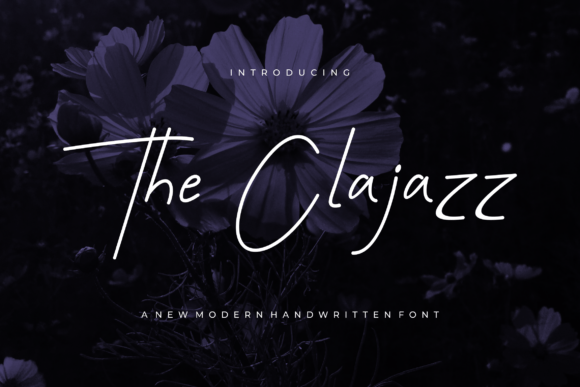
The Clajazz Font: A Timeless Elegance for Sophisticated Designs
The Clajazz Font is a sophisticated and elegant handwritten typeface that has captured the hearts of designers and typography enthusiasts alike. With its delicate and flowing style, this font is ideal for creating wedding invitations, branding, quotes, and elegant designs that exude a sense of refinement and poise. In this article, we will explore the features and benefits of the Clajazz Font, and how it can elevate your designs to new heights of sophistication and elegance.
The Origins of the Clajazz Font
The Clajazz Font is a carefully crafted typeface that is designed to evoke a sense of timeless charm and elegance. Its origins are rooted in traditional calligraphy, with a modern twist that makes it perfect for contemporary designs. The font’s creator aimed to create a typeface that would be both refined and versatile, suitable for a wide range of applications, from wedding invitations to branding and advertising.
Key Features of the Clajazz Font
- Delicate and Flowing Style: The Clajazz Font features a delicate and flowing style that is reminiscent of traditional calligraphy.
- Refined Strokes: The font’s strokes are carefully crafted to create a sense of elegance and sophistication.
- Graceful Appearance: The Clajazz Font has a graceful appearance that makes it perfect for creating elegant designs.
- Timeless Charm: The font’s classic style ensures that it will remain timeless and relevant for years to come.
Uses of the Clajazz Font
The Clajazz Font is a versatile typeface that can be used for a wide range of applications, including:
- Wedding Invitations: The Clajazz Font is ideal for creating beautiful and elegant wedding invitations that set the tone for a special day.
- Branding: The font’s sophisticated style makes it perfect for branding and advertising, where a sense of elegance and refinement is essential.
- Quotes: The Clajazz Font is great for creating inspirational quotes, posters, and social media graphics that require a touch of elegance.
- Elegant Designs: The font’s flowing style and refined strokes make it perfect for creating elegant designs, such as luxury packaging, high-end product branding, and more.
Benefits of Using the Clajazz Font
Using the Clajazz Font can bring numerous benefits to your designs, including:
- Elegance and Sophistication: The Clajazz Font adds a touch of elegance and sophistication to your designs, making them stand out from the crowd.
- Timeless Appeal: The font’s classic style ensures that your designs will remain timeless and relevant for years to come.
- Versatility: The Clajazz Font is a versatile typeface that can be used for a wide range of applications, from wedding invitations to branding and advertising.
- Easy to Read: The font’s clear and refined strokes make it easy to read, even at small sizes.
Tips for Using the Clajazz Font
To get the most out of the Clajazz Font, here are some tips to keep in mind:
- Use it Sparingly: The Clajazz Font is a elegant typeface that should be used sparingly to avoid overwhelming the reader.
- Pair it with Other Fonts: The font pairs well with other serif and sans-serif fonts, making it easy to create a harmonious and balanced design.
- Experiment with Colors: The Clajazz Font looks great in a variety of colors, from classic black and white to bold and bright hues.
- Pay Attention to Kerning: Make sure to adjust the kerning to ensure that the font looks elegant and refined.
The Clajazz Font is a sophisticated and elegant handwritten typeface that is perfect for creating wedding invitations, branding, quotes, and elegant designs. With its delicate and flowing style, refined strokes, and timeless charm, this font is sure to elevate your designs to new heights of sophistication and elegance. Whether you’re a designer, typography enthusiast, or simply looking for a beautiful font to use in your projects, the Clajazz Font is an excellent choice.